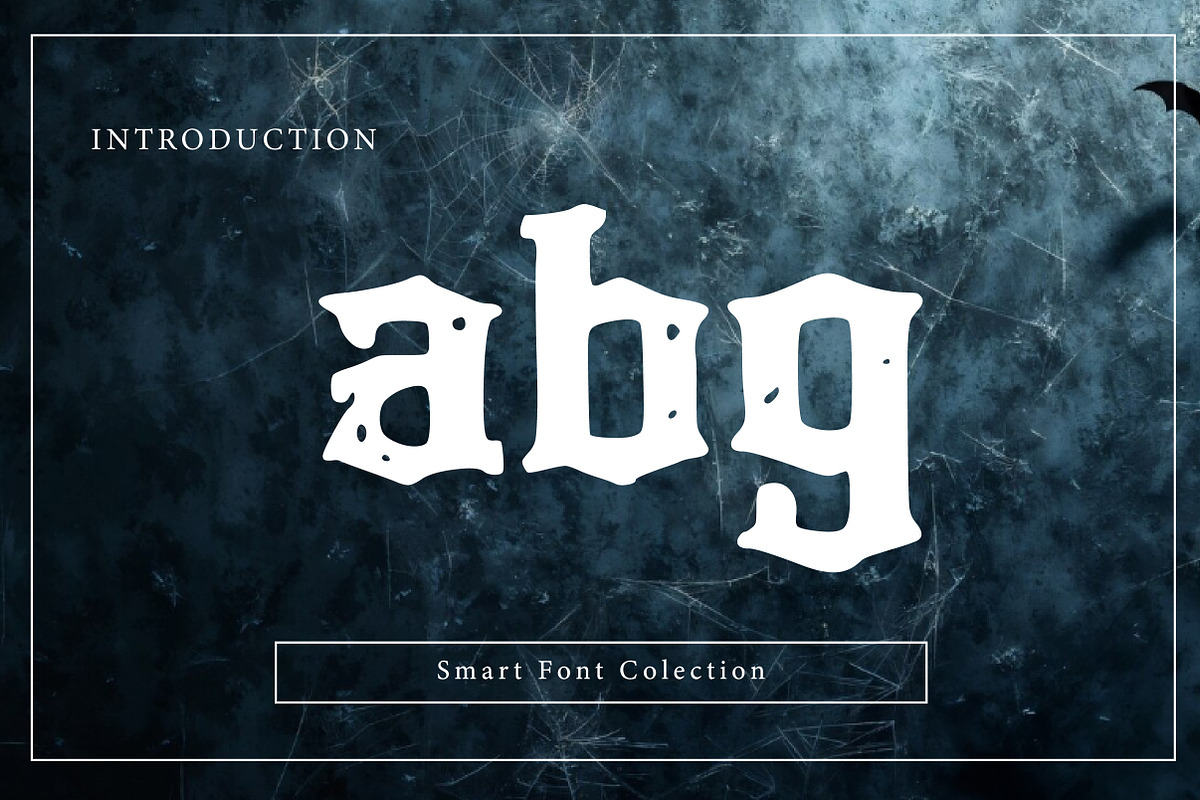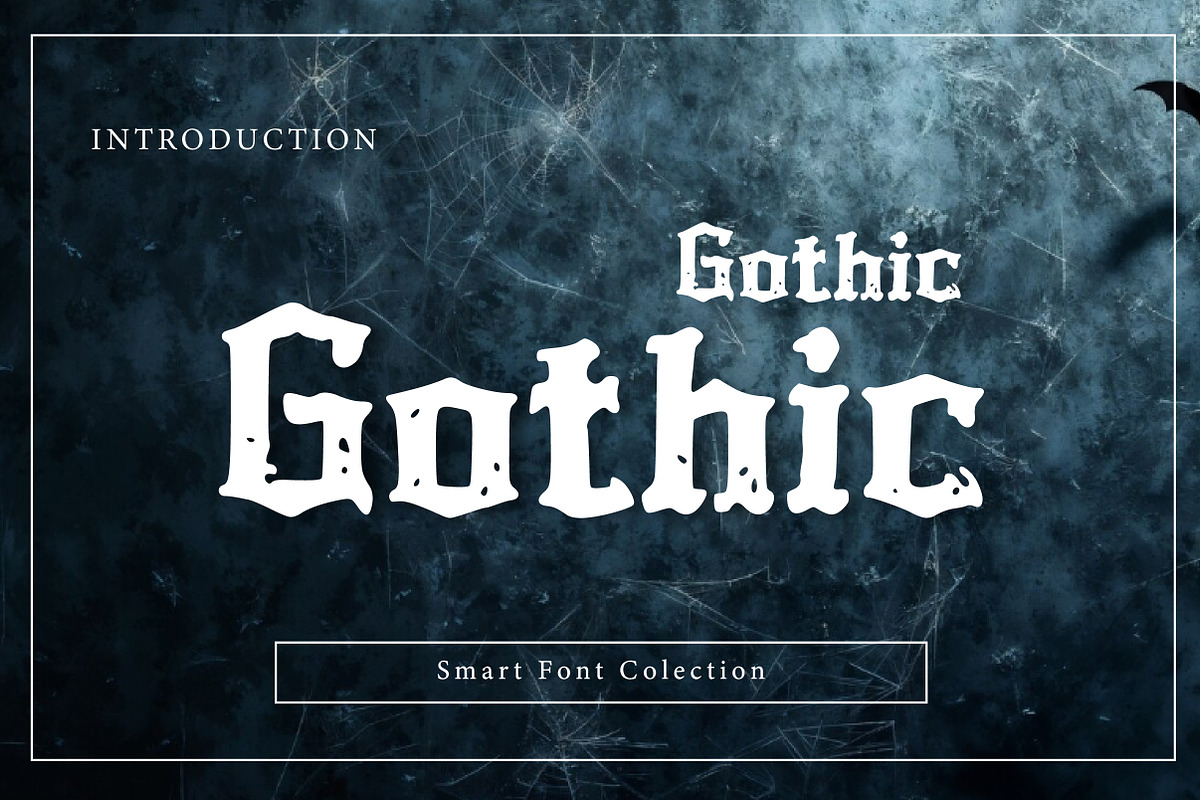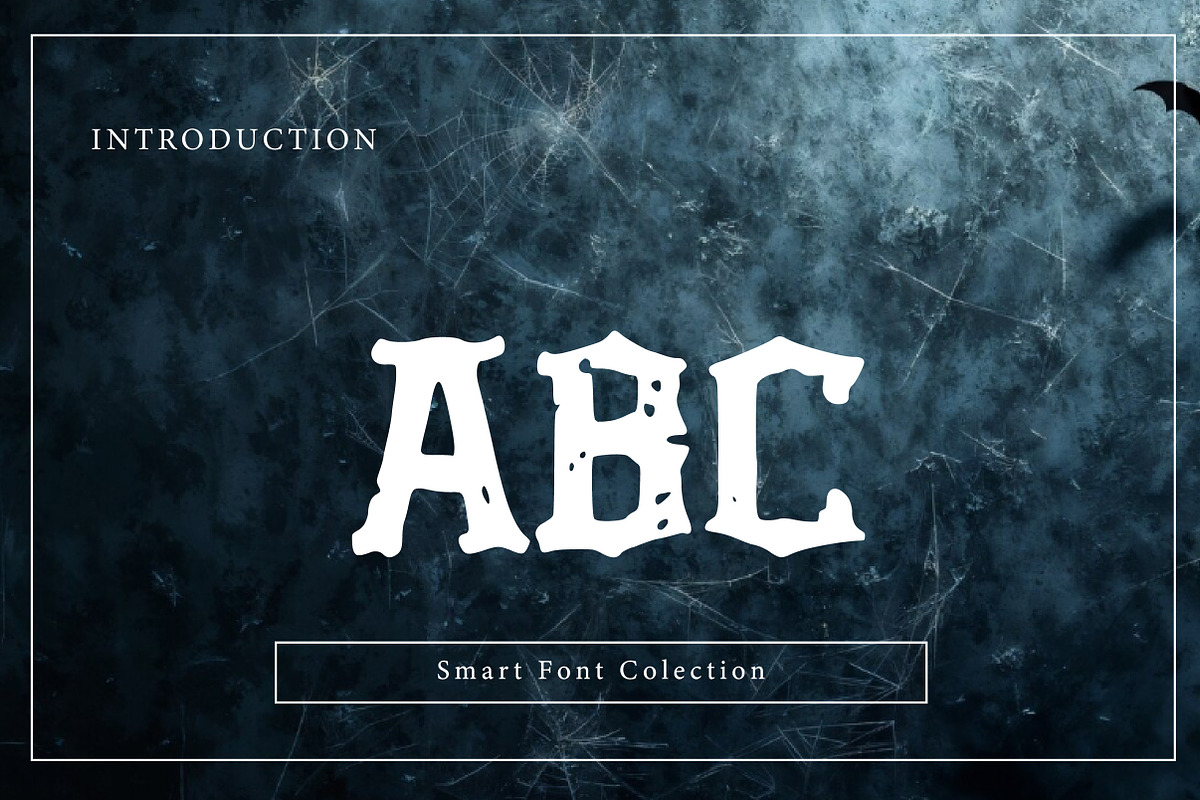
Gothic
Gothic is a bold and classic blackletter-style display font inspired by medieval and old English typography. Featuring sharp edges, strong vertical strokes, and an authentic gothic character, this font is perfect for logos, branding, posters, tattoos, album covers, book titles, packaging, and dark-themed designs. Gothic delivers a powerful historical and dramatic look while keeping a clean readable structure for impactful headlines and vintage typography projects.